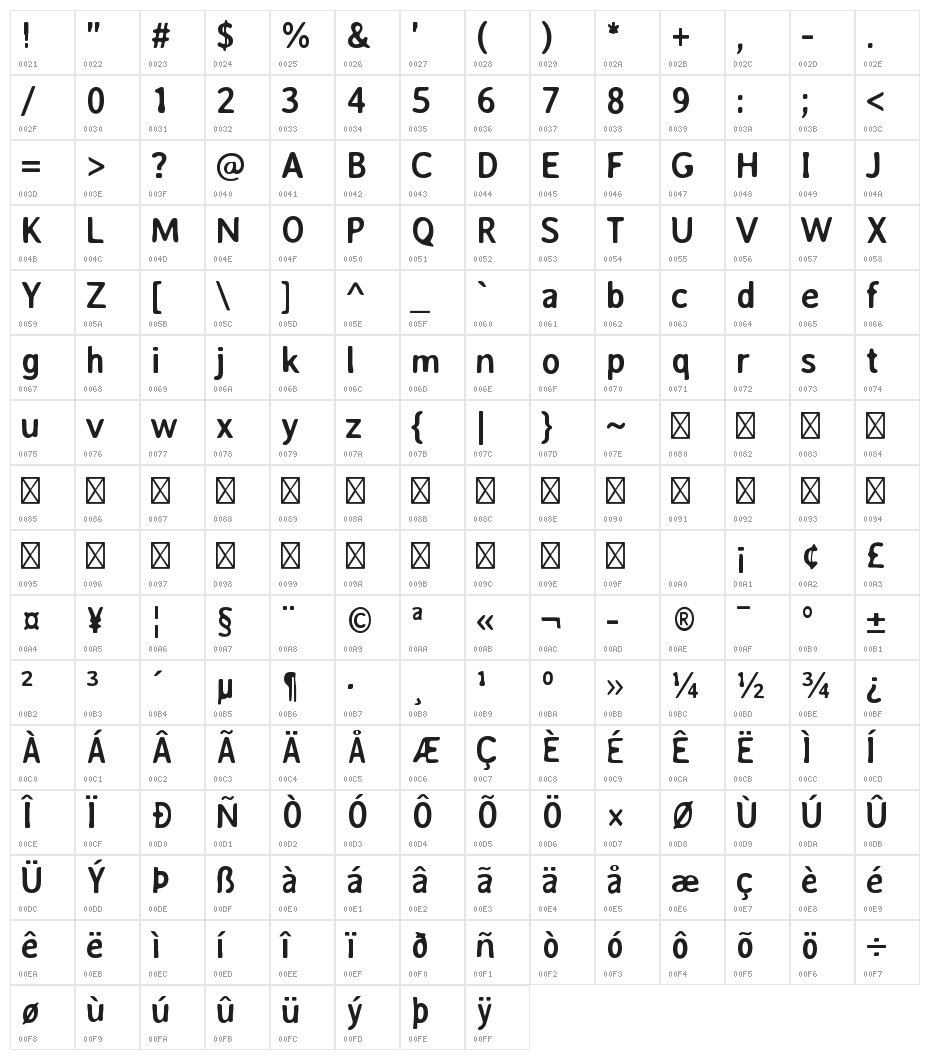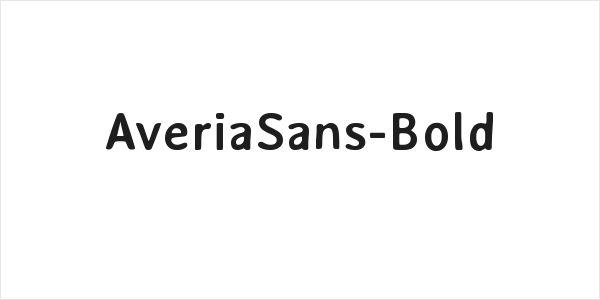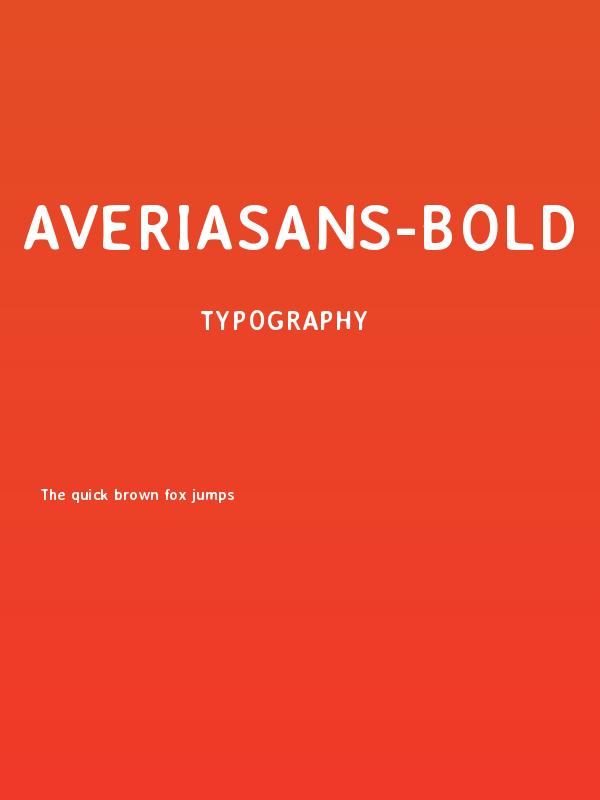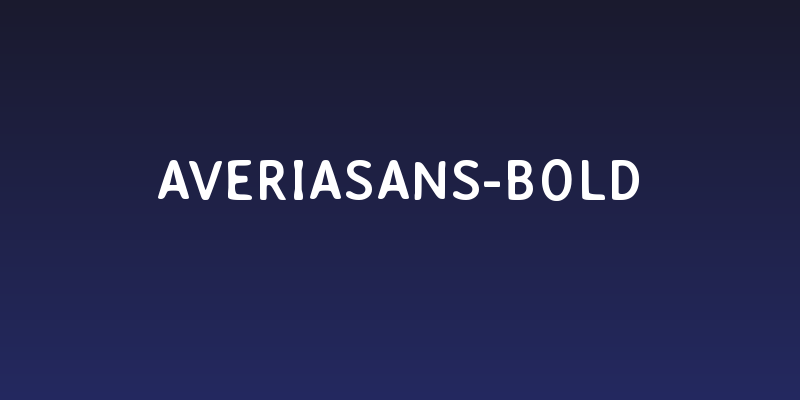
AveriaSans-Bold Font
AveriaSans-Bold Description
This font features a bold and rounded style, offering a friendly and approachable appearance. The characters are well-balanced with consistent stroke thickness, providing a uniform look across both uppercase and lowercase letters. The numerals and special characters maintain the same rounded aesthetic, ensuring cohesion throughout the font. The design is modern yet retains a touch of playfulness, making it versatile for various applications. Its readability is enhanced by the clear distinction between characters, making it suitable for both digital and print media.